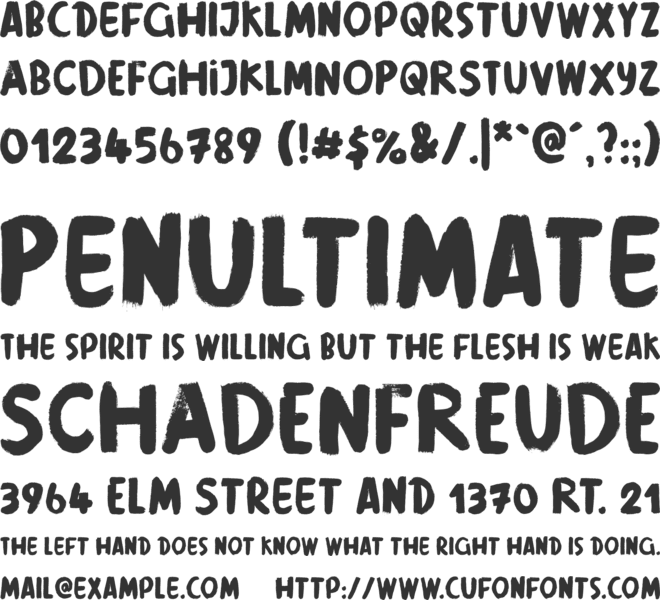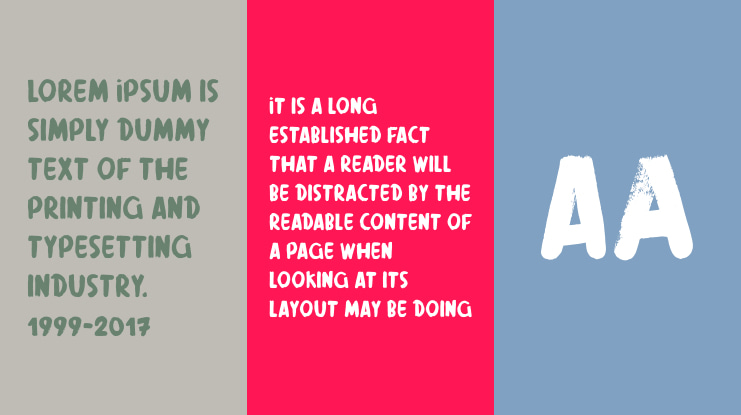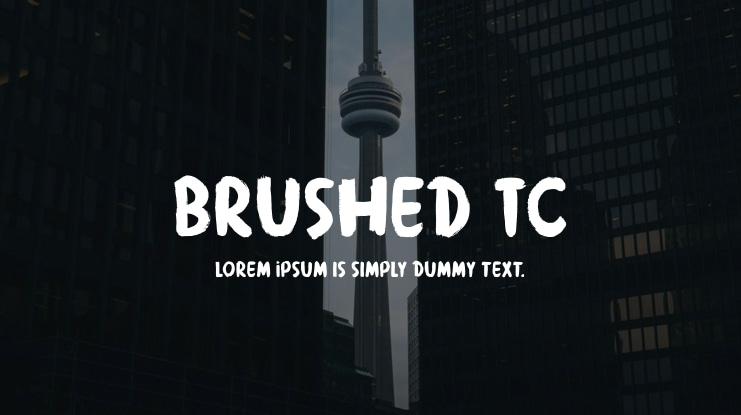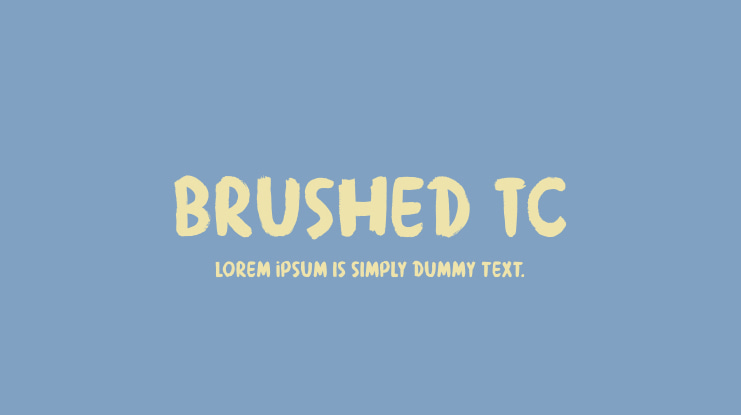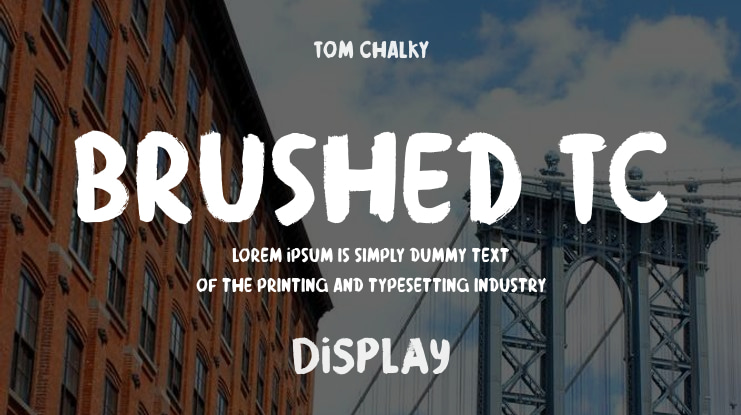
Brushed TC Font
ℹ️ Full font family description: Introducing the Brushed TC Font Trio. A family of hand-painted fonts designed to look great in all sizes! With multilingual support and stylistic alternates (for the regular typeface), this family is suitable for a vast array of design projects. The goal was to create a family of go-to brush fonts that are exactly as you’d expect – simple, effective, and full of character while being perfectly legible.